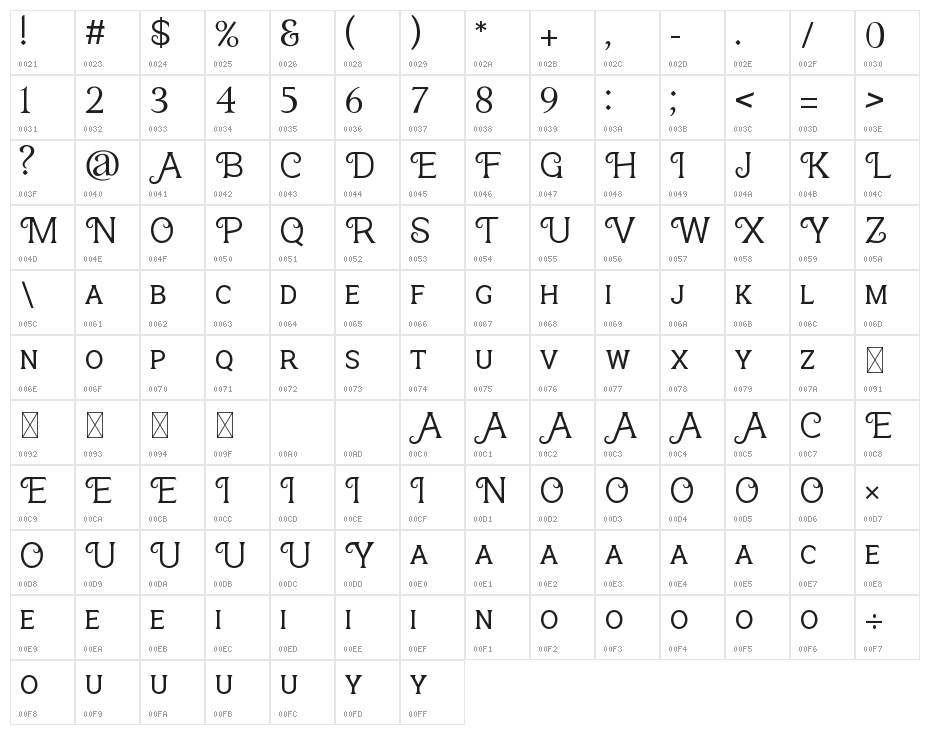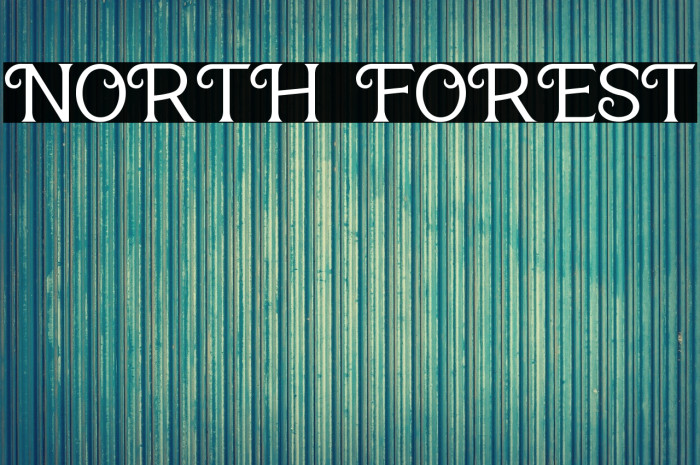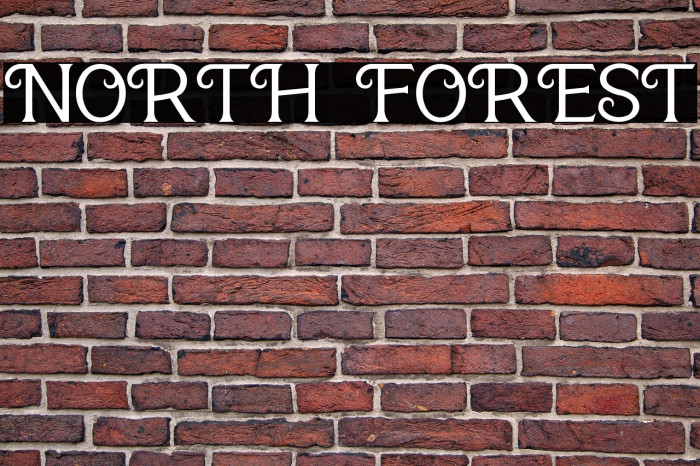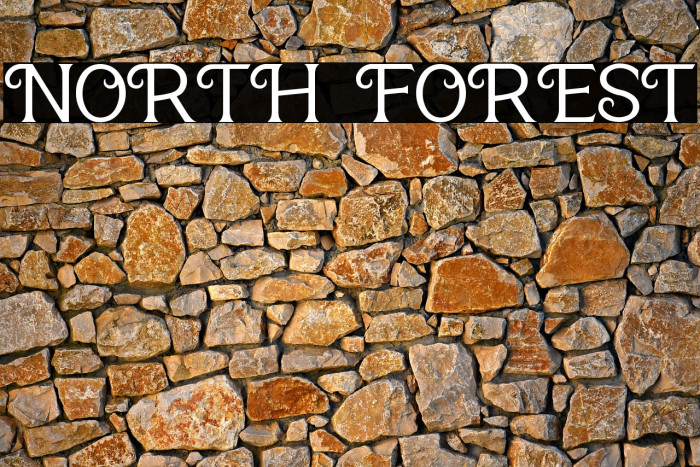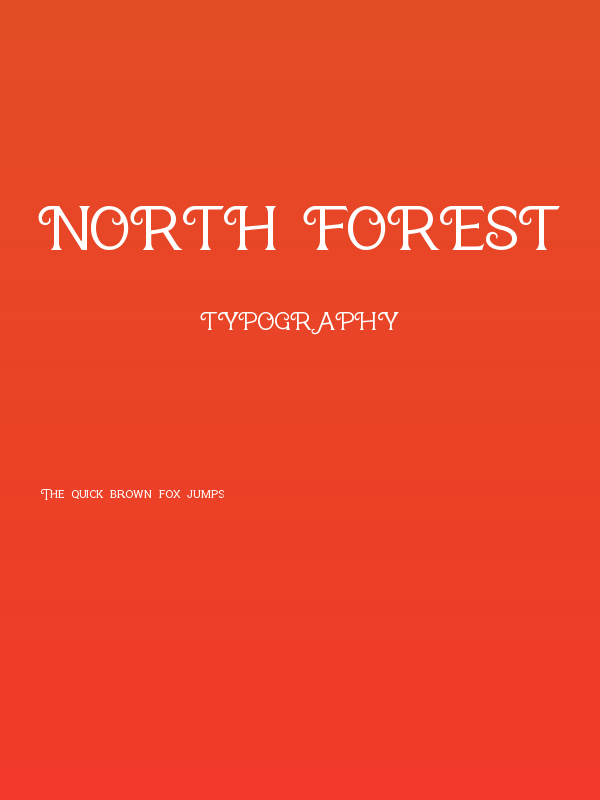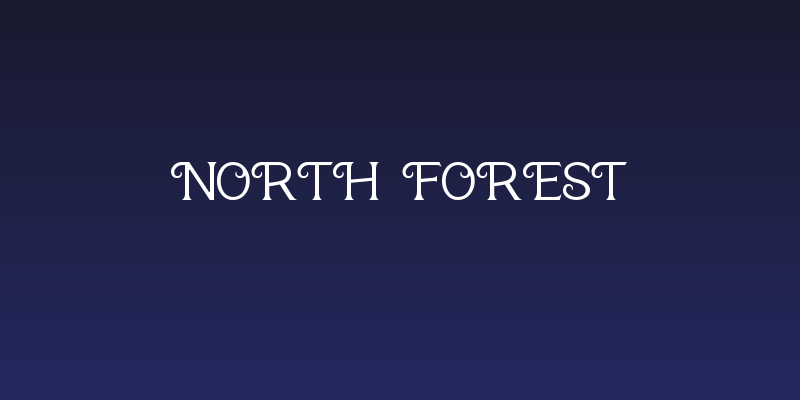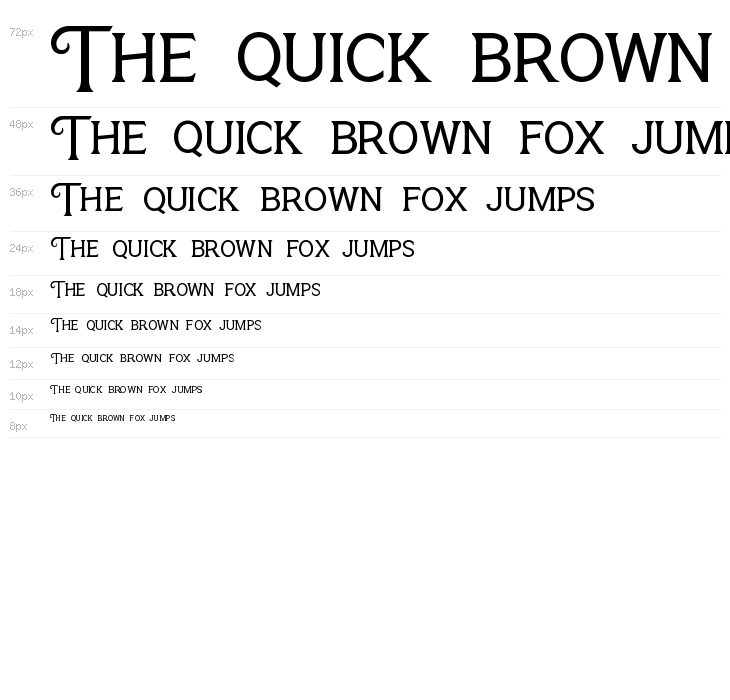
NORTH FOREST Font
NORTH FOREST Description
This font features a classic serif style with a touch of elegance and sophistication. The uppercase letters are bold and prominent, with distinct serifs that add a traditional feel. The lowercase letters maintain a consistent style, offering a harmonious blend with the uppercase. The numerals are clear and easy to read, with a slight curvature that complements the overall design. Special characters are well-defined, ensuring versatility in various applications. The font's balance between boldness and readability makes it suitable for both formal and creative projects.
| Overall Style | Classic |
| Use Case | Headlines, Body text, Logos |
| Proposed Projects | Ideal for book covers, formal invitations, branding, and editorial design. |